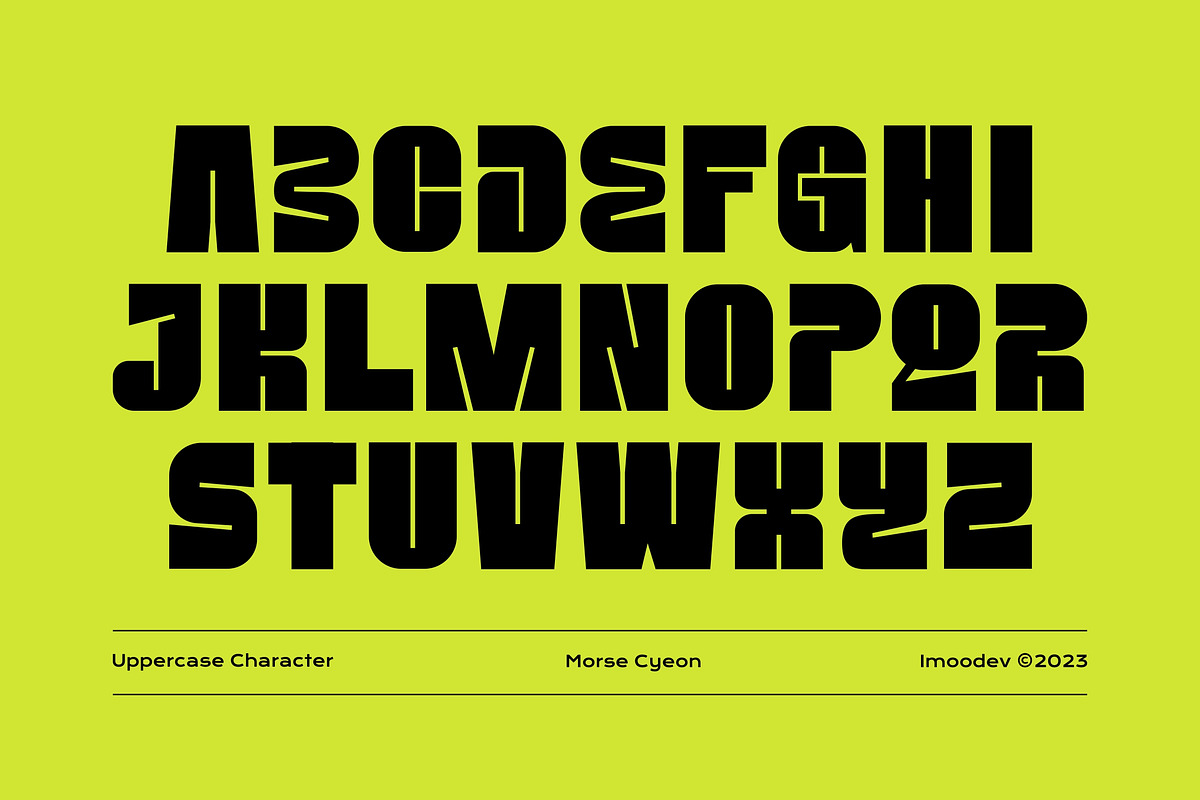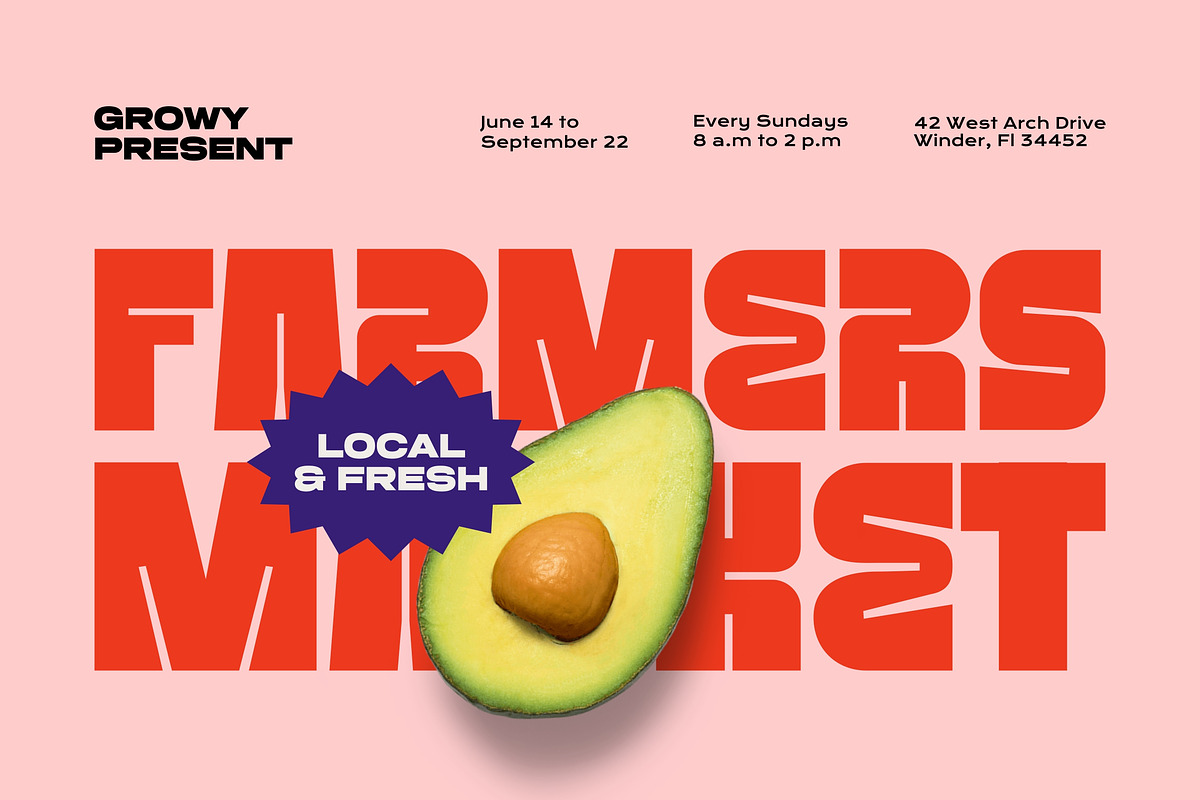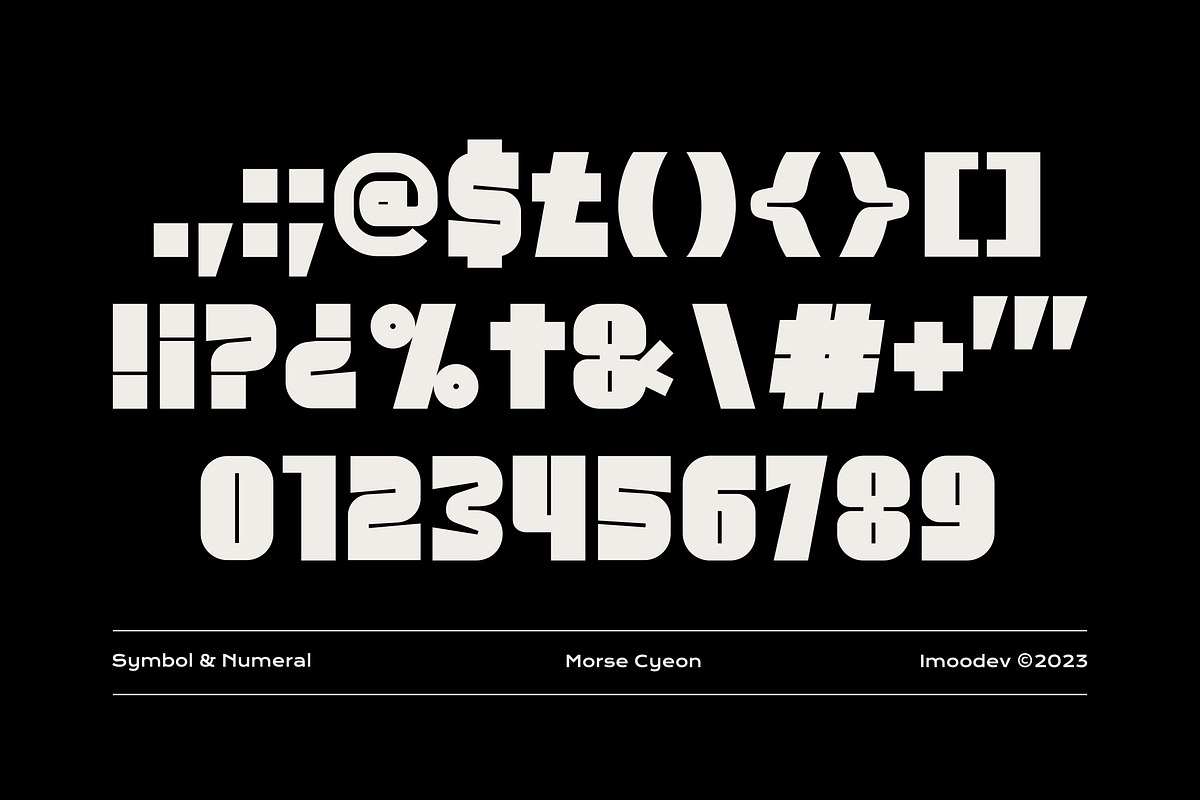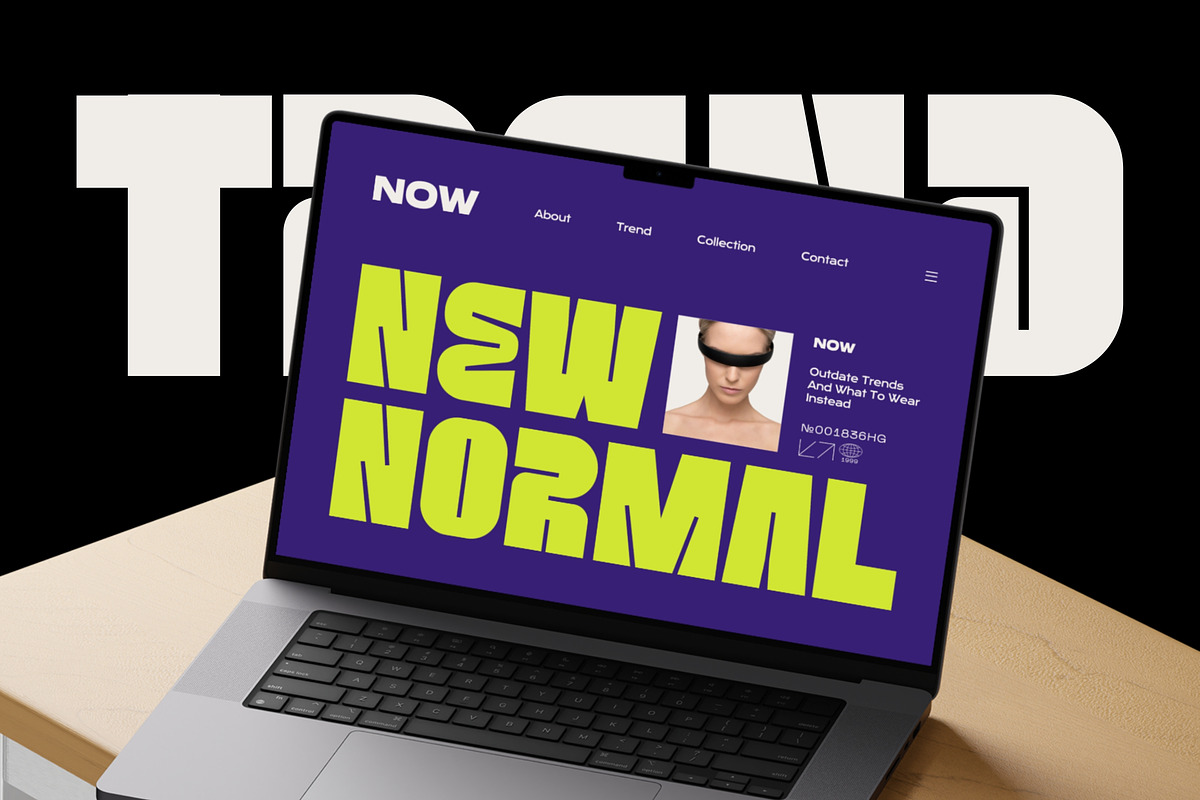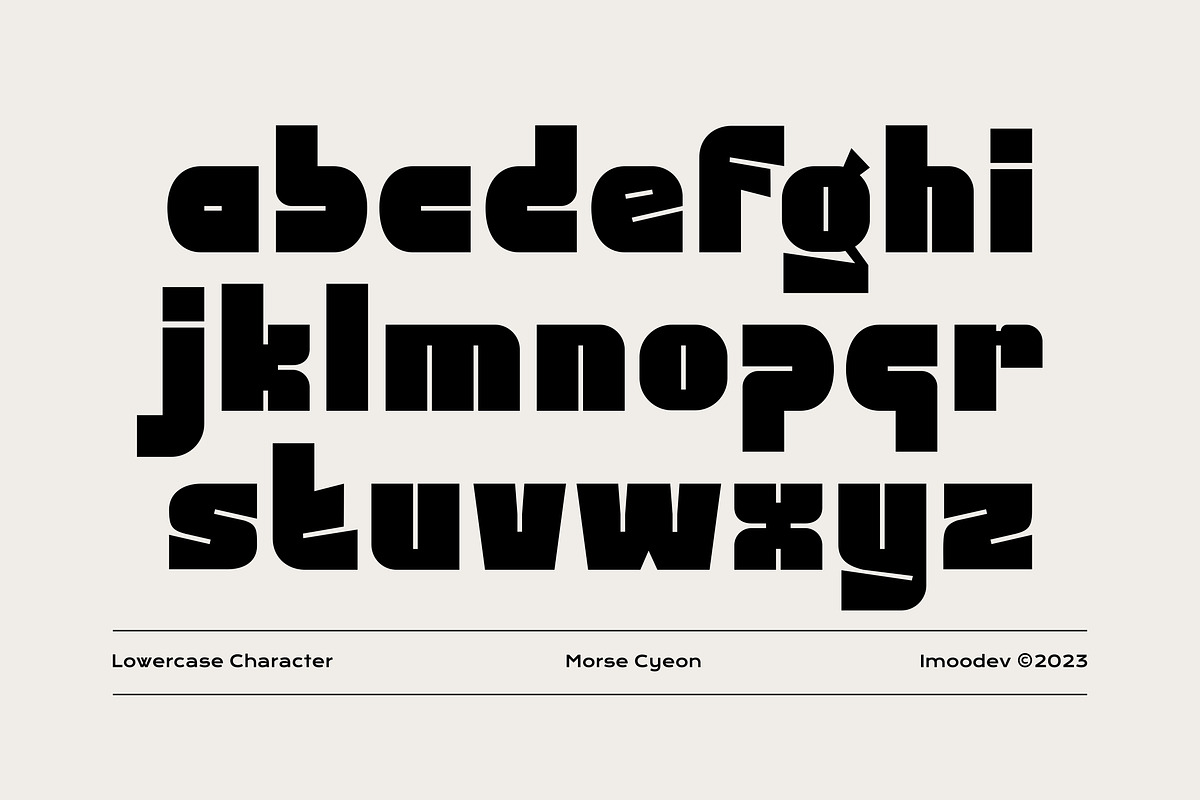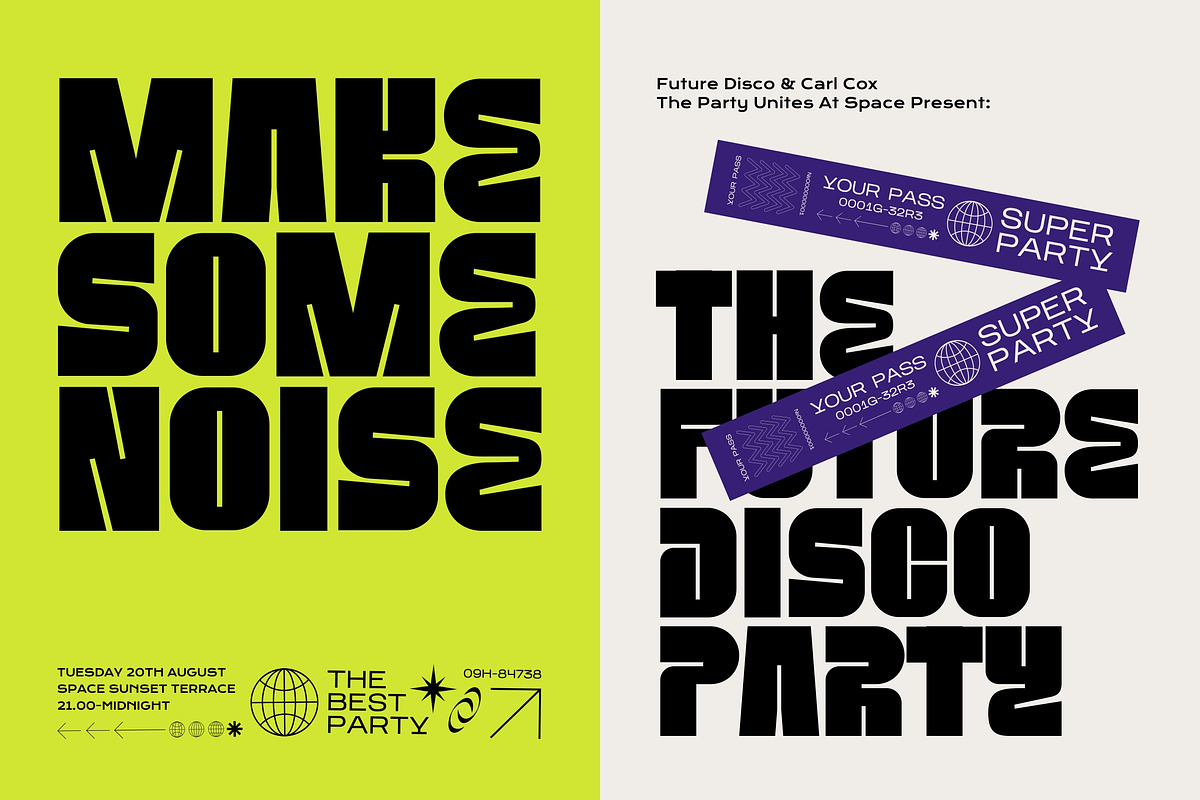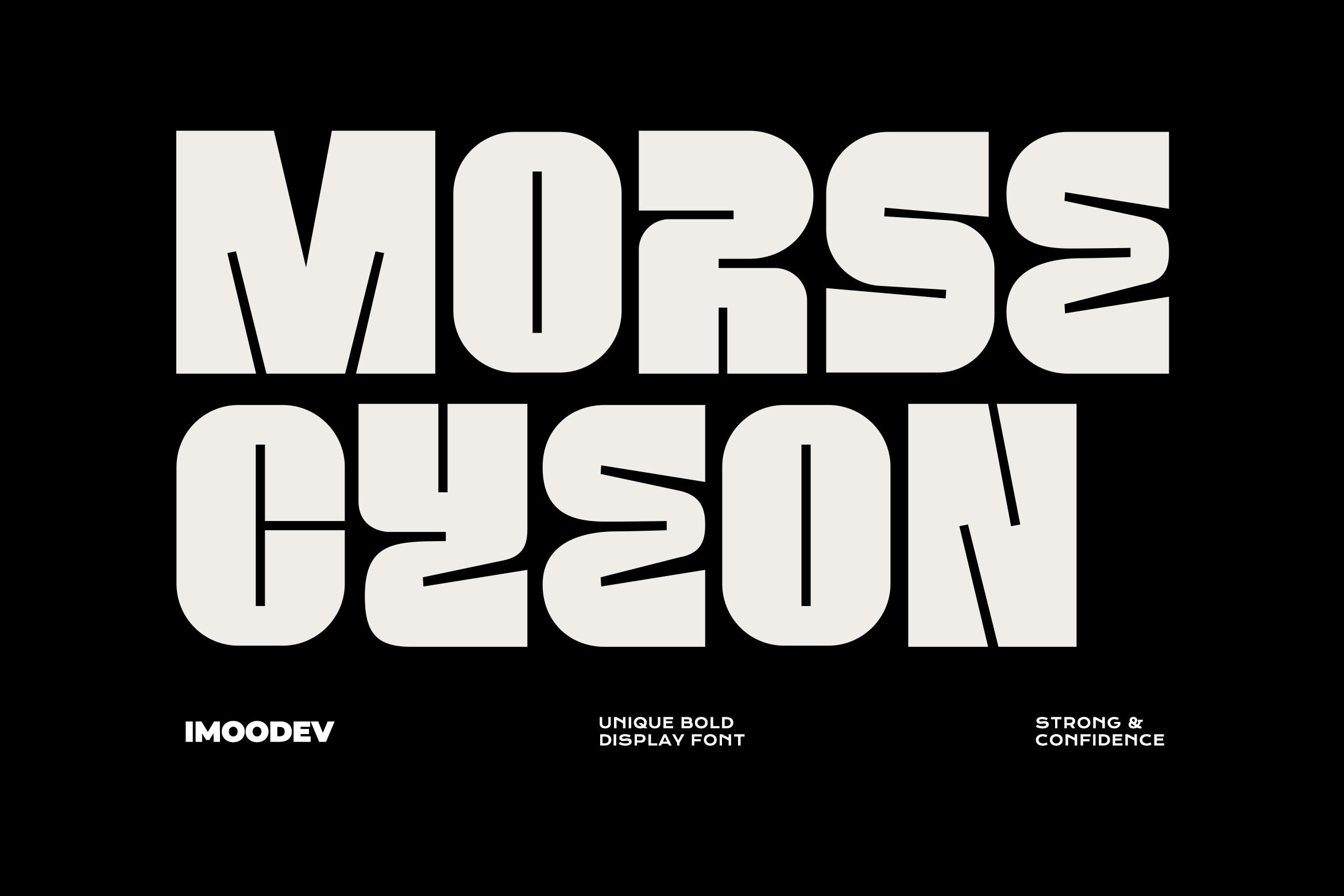
Morse Cyeon - Bold Display Font
Introducing Morse Cyeon, a unique and powerful bold display font designed to make an immediate impact. This font is built on a foundation of strong, blocky, and heavy letterforms that command attention, exuding confidence and a modern edge capturing the essence of the classic psychedelic movements of the 1970s.
What sets Morse Cyeon apart are its distinctive stencil like cuts and negative space "glitches" strategically placed within the characters. This design choice gives it a futuristic, tech inspired, and industrial feel, perfect for projects that need to stand out.
Whether you're designing eye catching posters, energetic event flyers, contemporary branding, bold website headlines, or unique apparel, Morse Cyeon delivers. The font family includes a full set of uppercase characters, a complete and equally stylized lowercase set, plus all the numerals and symbols you need for a cohesive design.